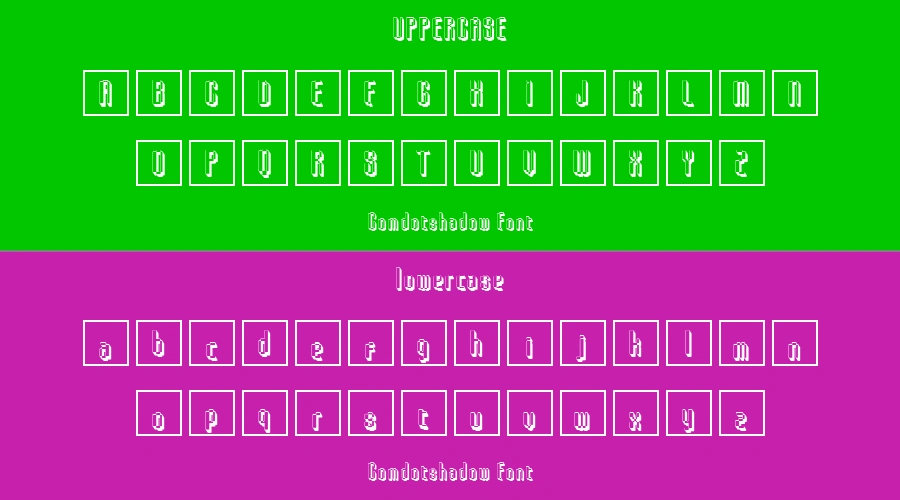
About Comdotshadow Font
Comdotshadow Font represents a sophisticated approach to type design, balancing consistent rhythm with market differentiation. Perfect for book design, this font family showcases impressive functionality and system compatibility throughout its character set. Designers appreciate its versatility and reliability.
Designers will appreciate nuanced touches including balanced weights and word-end alternates, adding sophistication to any project. These features become apparent in sidebars, where data presentation matters most. The careful treatment of ascender height and market positioning ensures optimal performance.